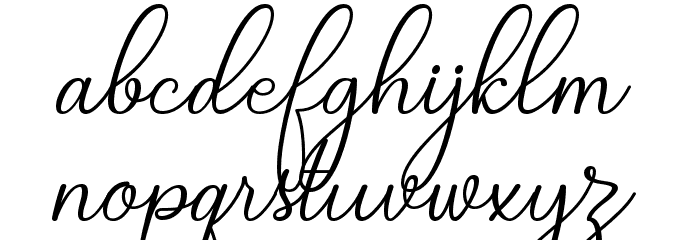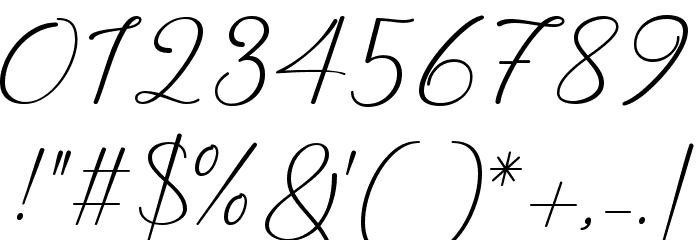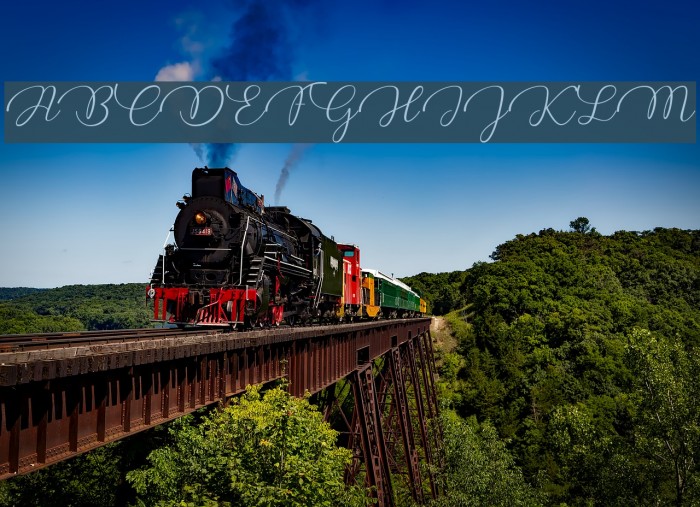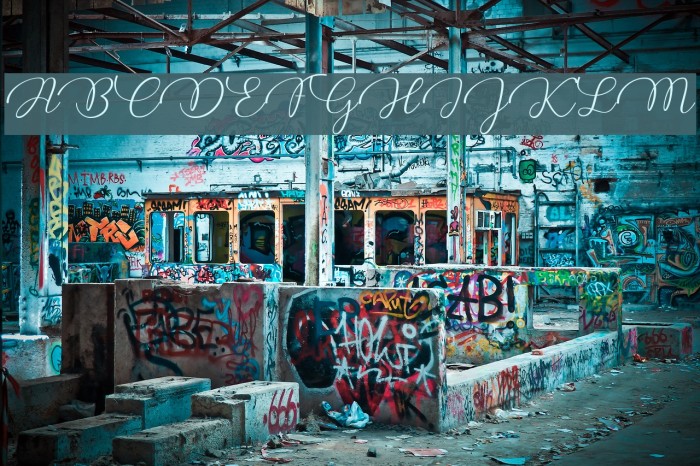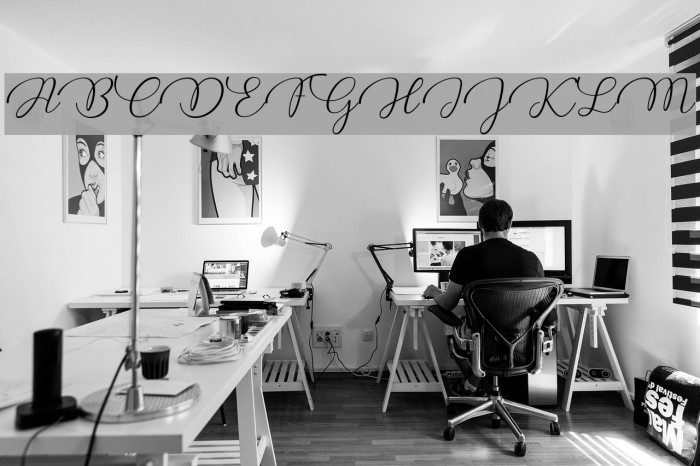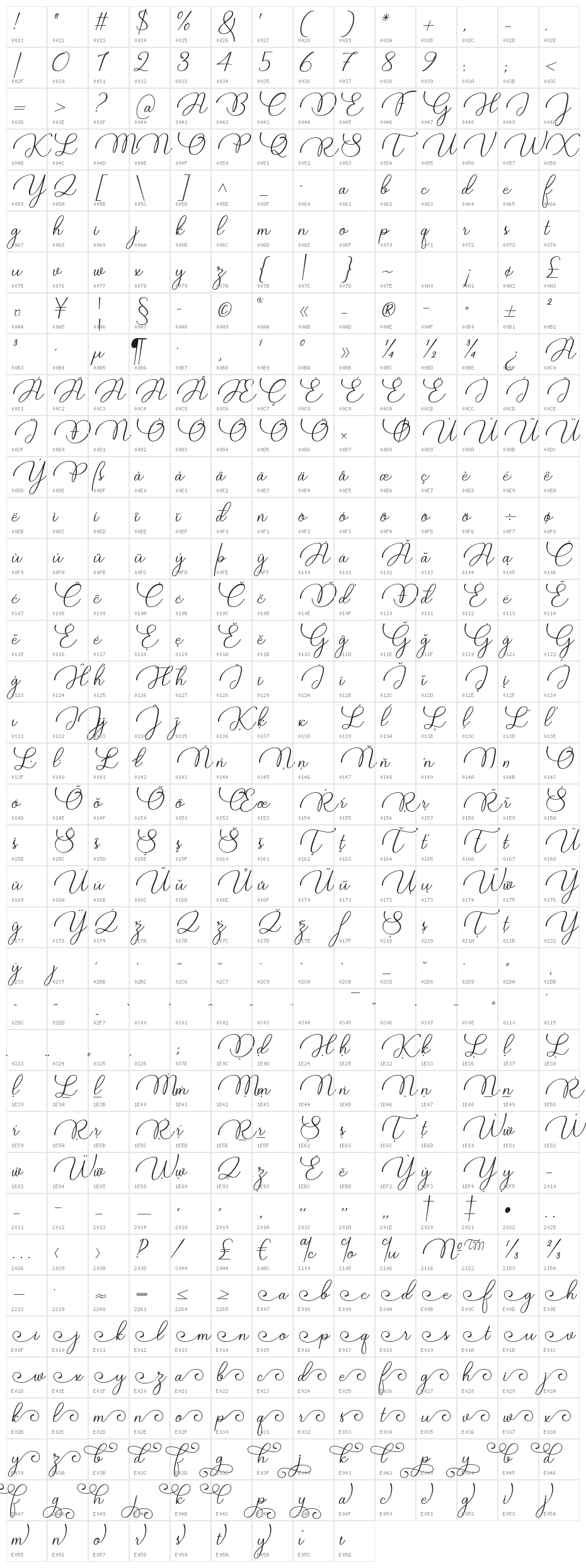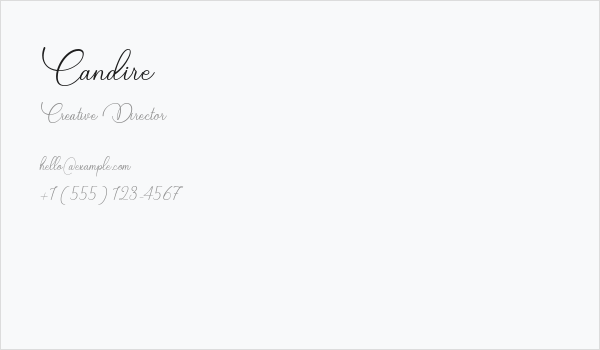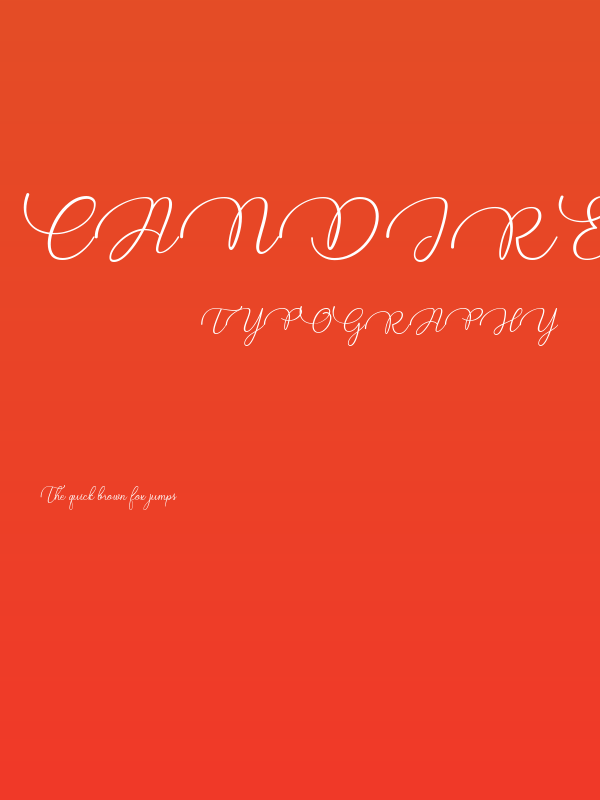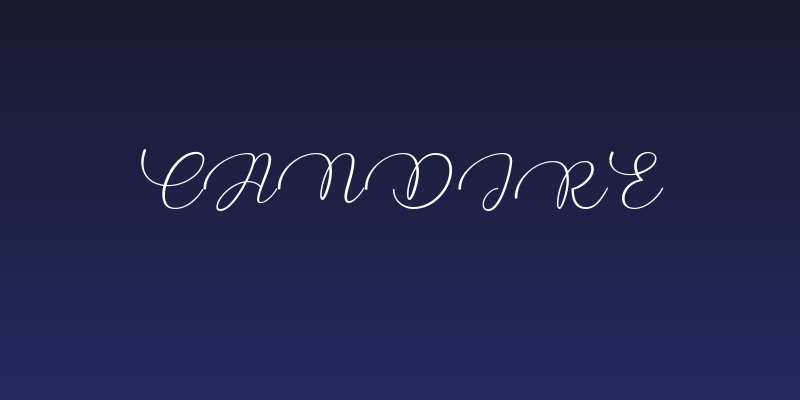
Candire Font
This elegant script font features flowing, cursive letterforms with a sophisticated and graceful appearance. The uppercase letters are intricately designed with delicate loops and swashes, while the lowercase letters maintain a smooth and connected style, enhancing readability. The numerals are consistent with the script's fluidity, offering a cohesive look across all characters. Special characters are thoughtfully integrated, maintaining the font's overall aesthetic. This font exudes a sense of elegance and refinement, making it ideal for formal invitations, branding, and decorative purposes.
An elegant script font with flowing, cursive letterforms and refined style.
- Proposed Projects: Ideal for wedding invitations, elegant branding, greeting cards, and decorative projects.
- Overall Style: Elegant
- Use Case: Invitations, Branding, Decorative